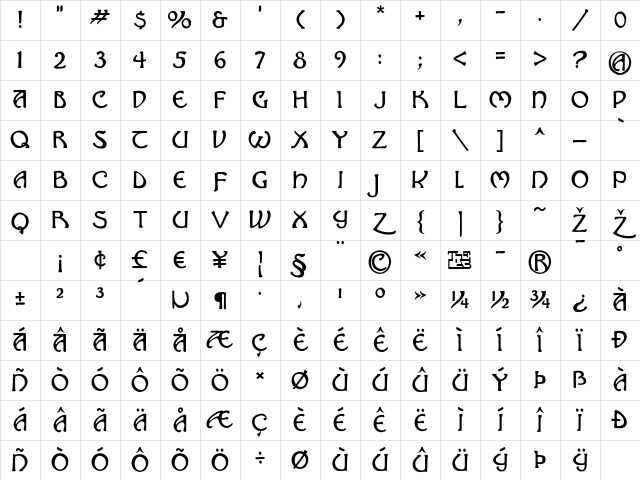
Hadley Regular Free Font
Hadley Regular
Design Context for Hadley
Hadley is a composed and adaptable typeface that performs quietly and consistently across a wide range of design contexts.